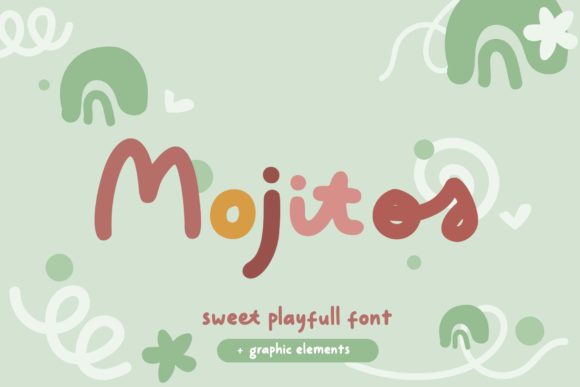
Step into a world of cheerful charm with Mojitos Font, a captivating script that exudes playfulness and authenticity. Its whimsical strokes bring life to any children's activity or school project, evoking a sense of carefree joy and creativity.
Embark on a delightful adventure with Mojitos Font, the perfect companion for expressing your unique style. Its charming personality adds a touch of magic to invitations, greeting cards, posters, and social media posts. Whether you're designing a whimsical logo or creating eye-catching headlines, Mojitos Font will make your words dance off the page.
With its sweet and playful demeanor, Mojitos Font is a breath of fresh air in the world of fonts. It's the ideal choice for adding a touch of warmth and personality to any project. Unleash your imagination and let Mojitos Font carry your words to new heights of expression.
Immerse yourself in the world of Mojitos Font, a captivating script that will transform your creative projects into enchanting works of art. Its playful curves and cheerful charm will capture hearts and leave a lasting impression. Discover the magic of Mojitos Font today and let your creativity soar!